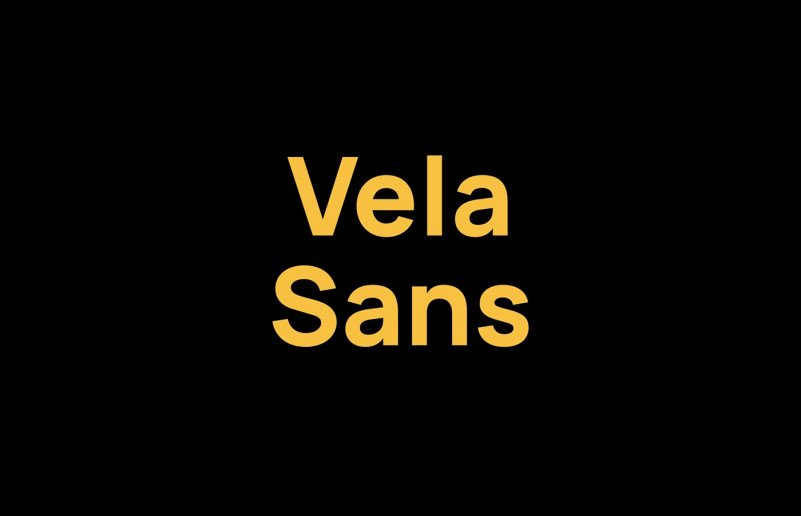
Vela Sans Font
This font is a contemporary and classic sans serif. it inspired by the 90s poster & magazine advertising. This font is a modification of Manrope font project. Vela Sans is an open-source modern grotesque font family. It supports most of Latin & Cyrillic languages.